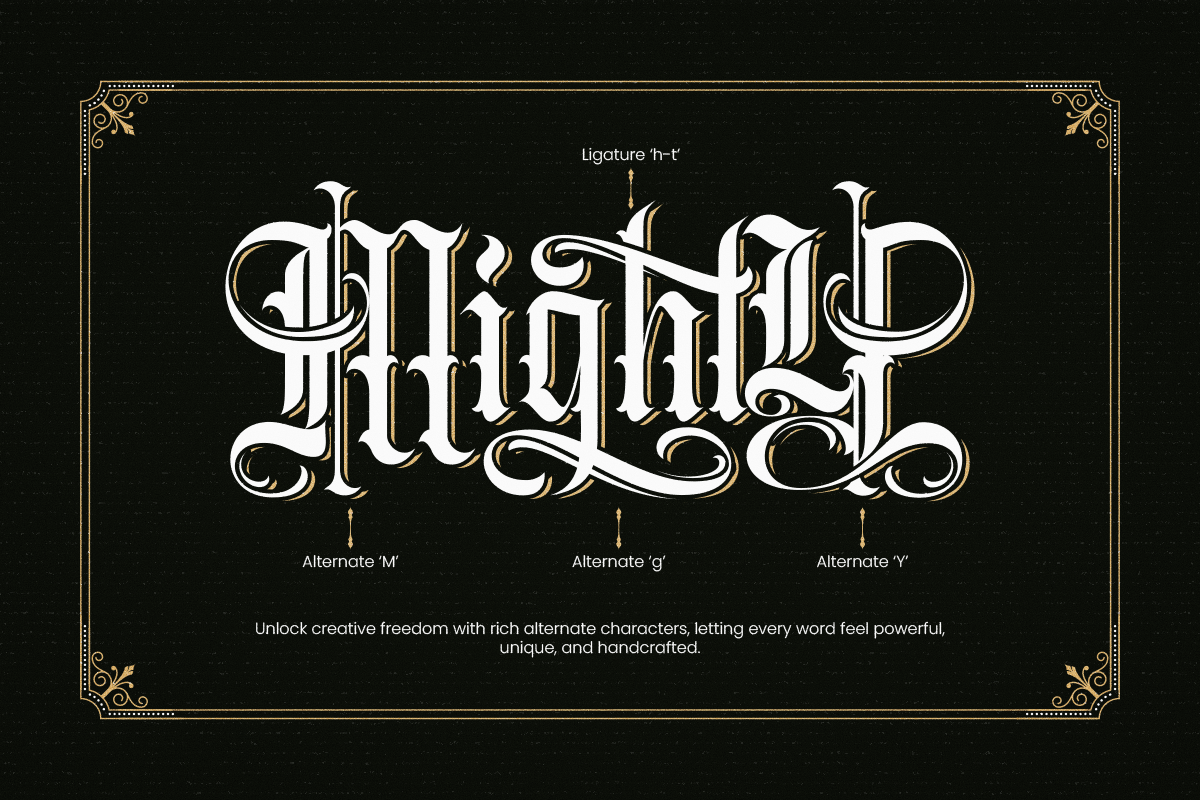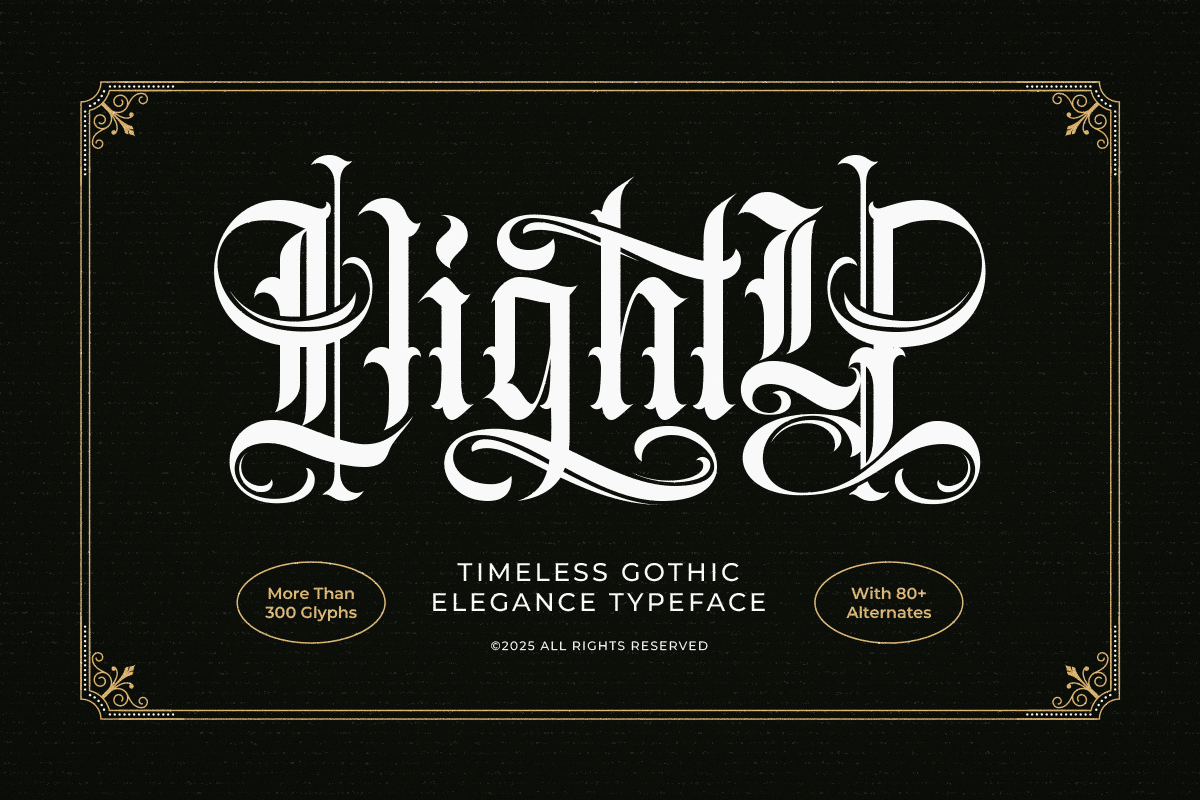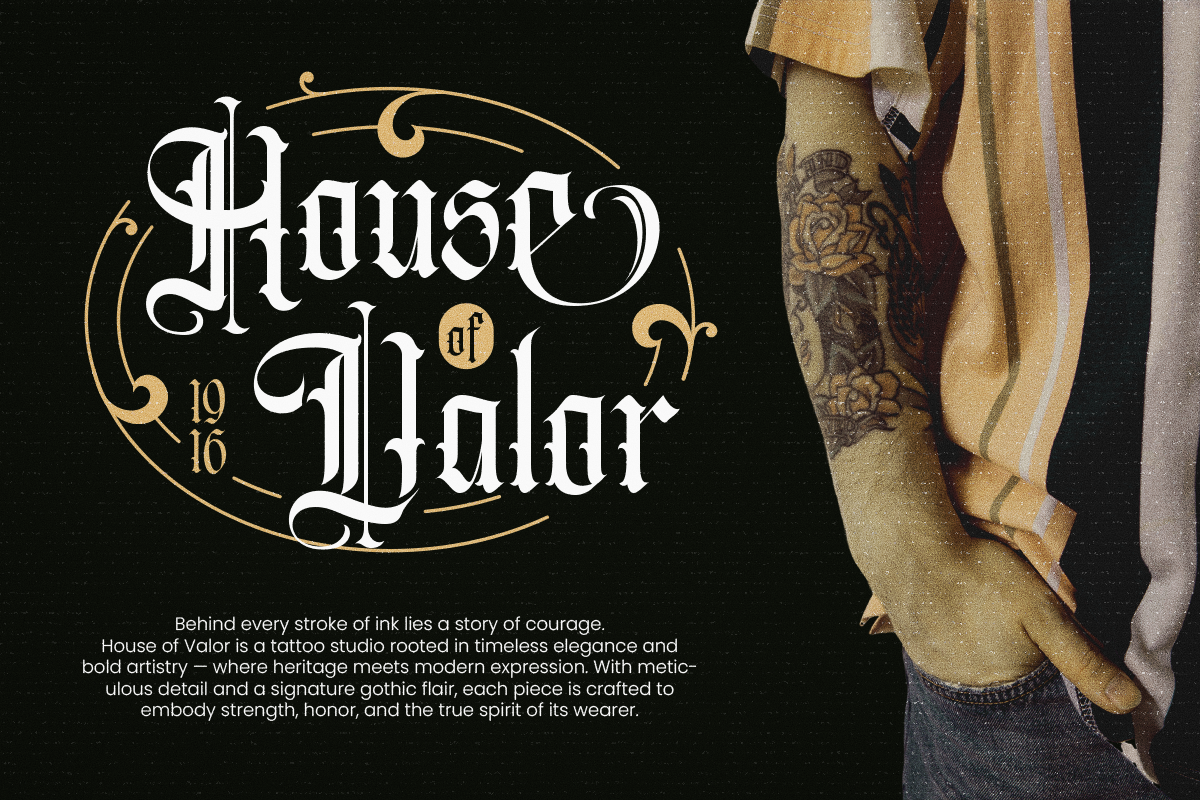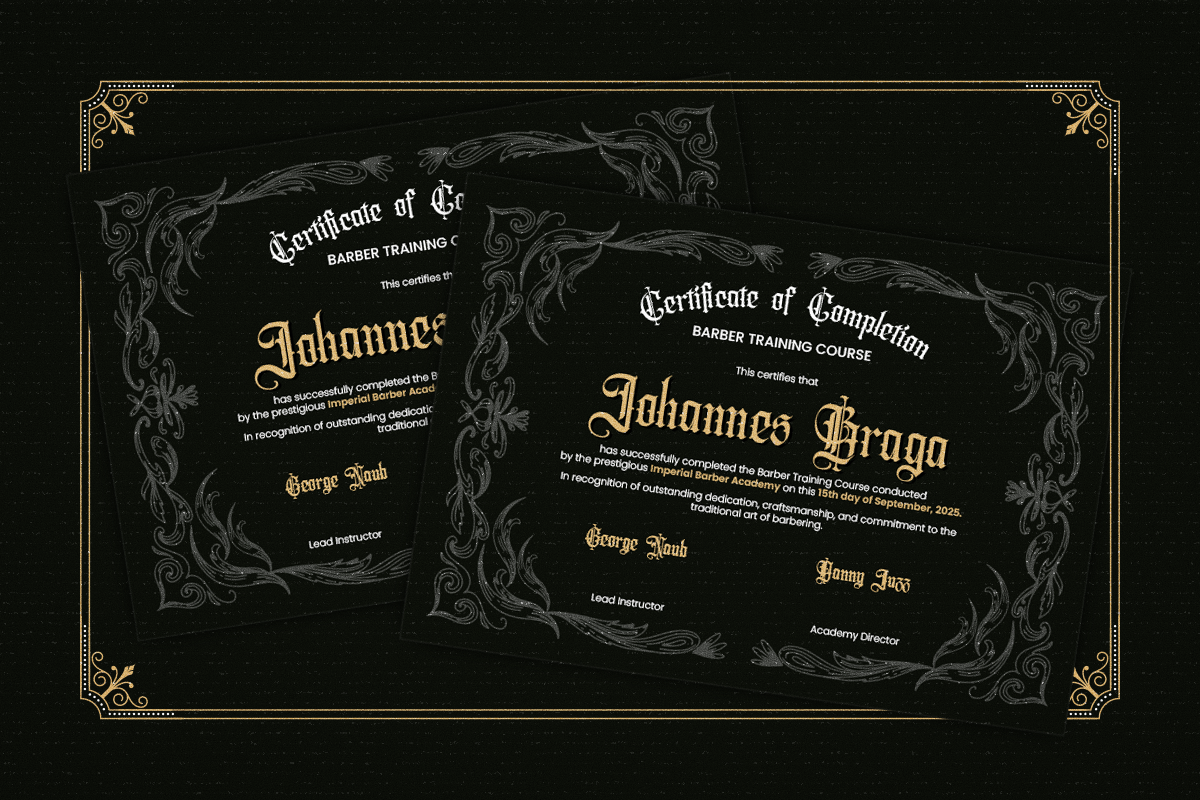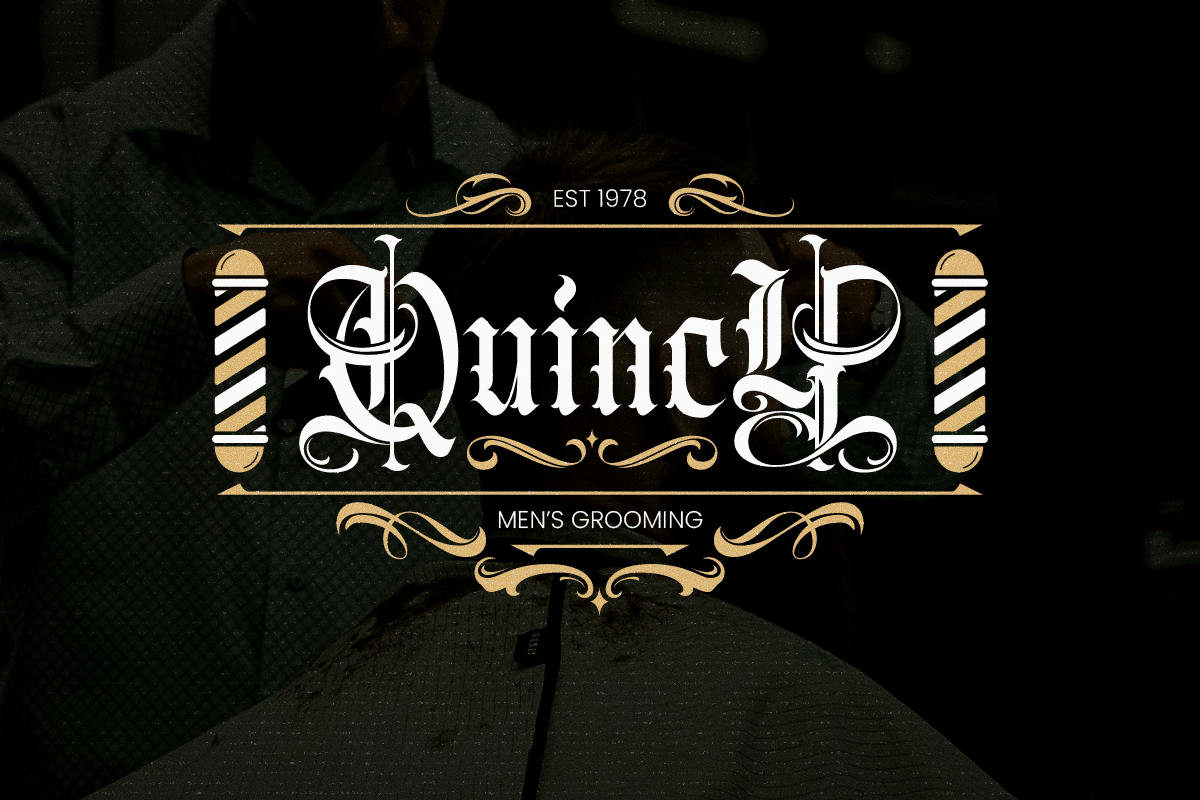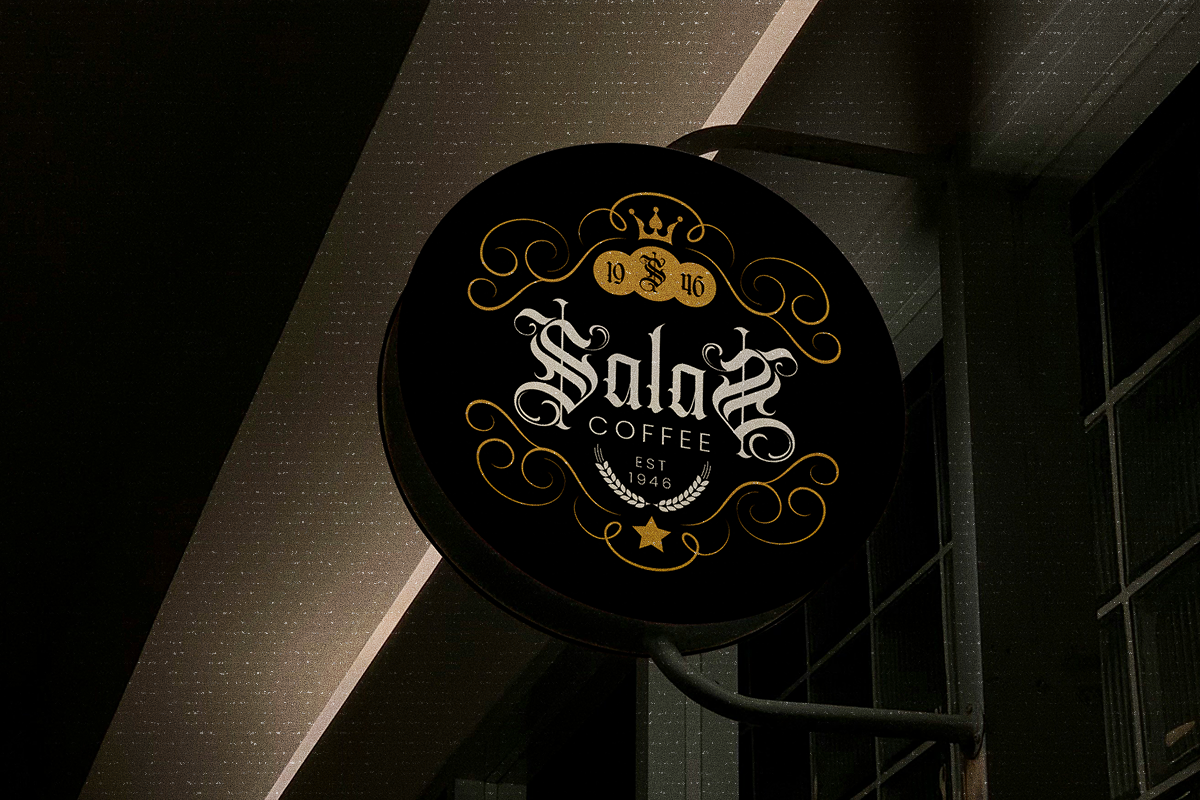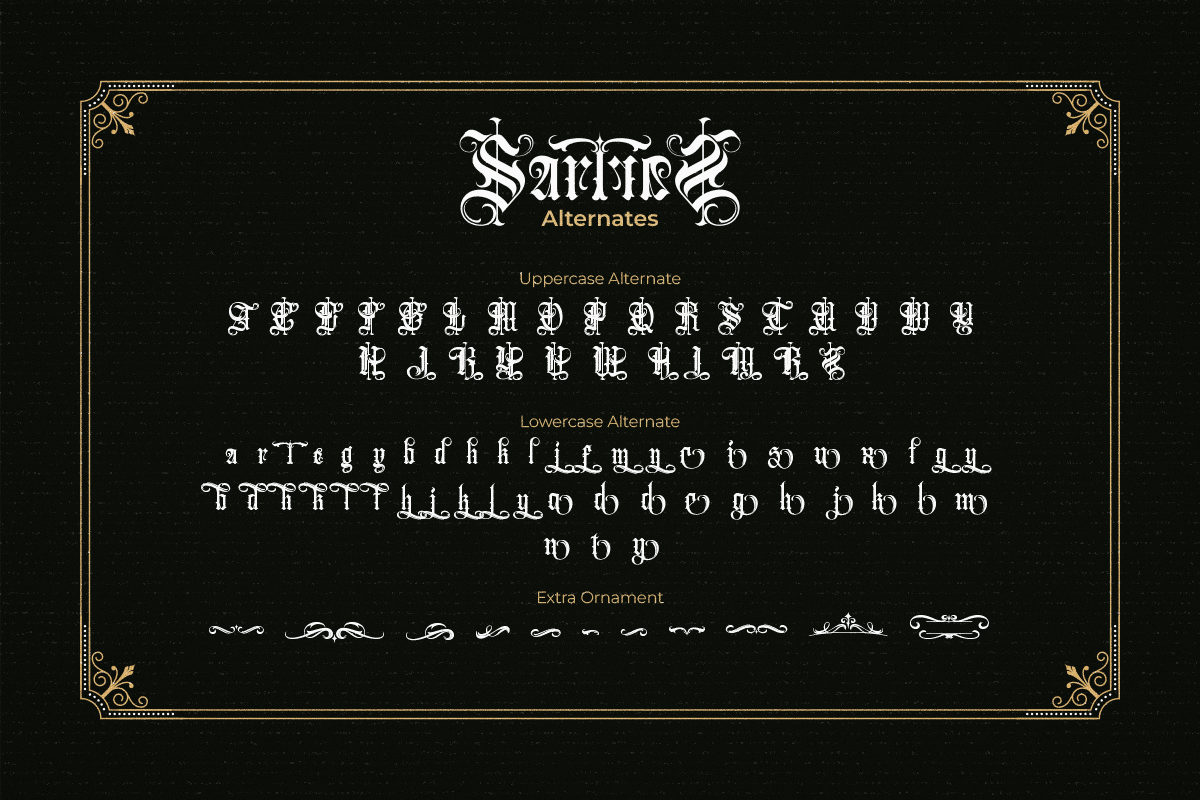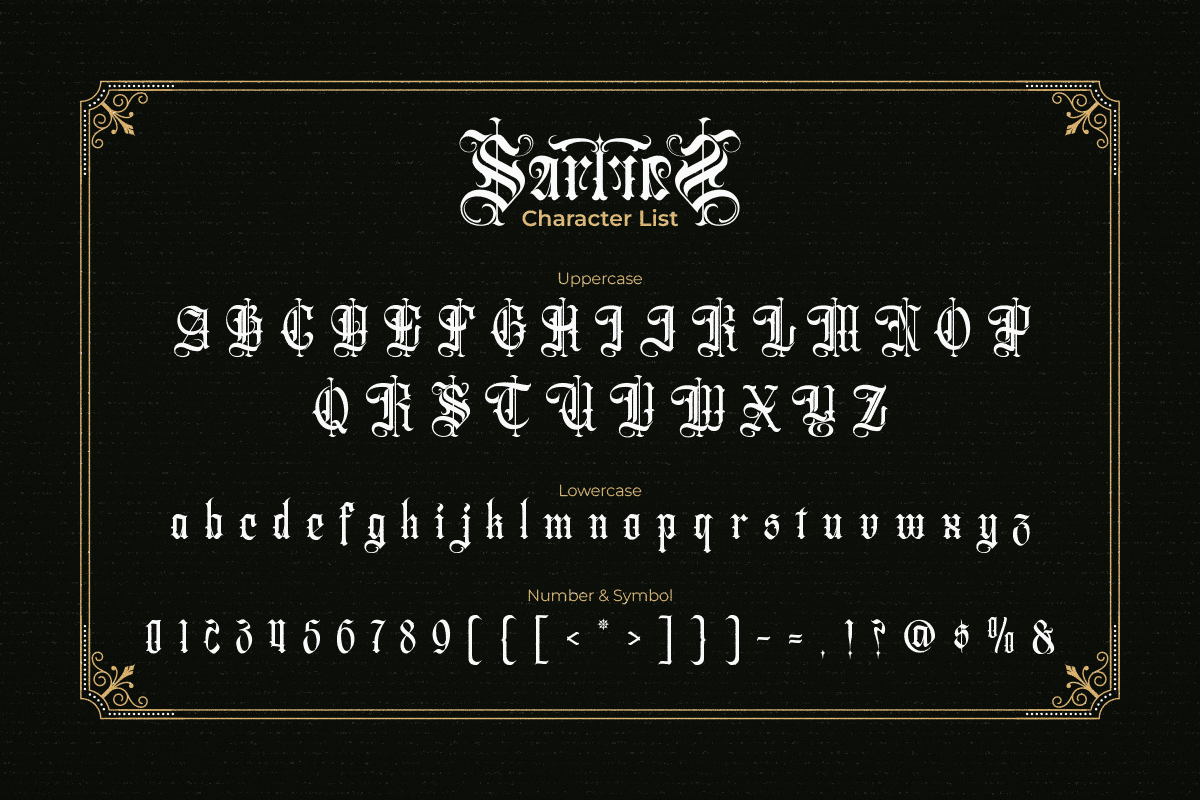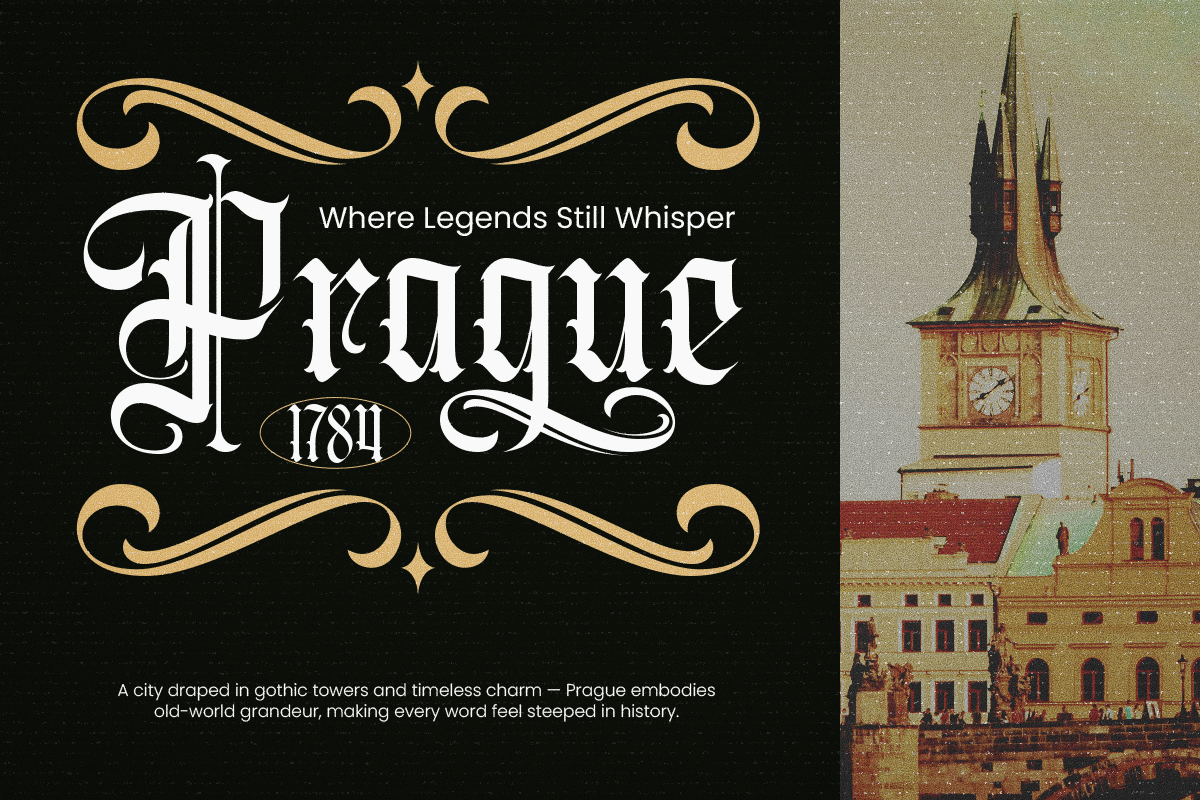
Vighty - Blackletter Font
Vighty is an elegant blackletter font that merges gothic tradition with modern sophistication. With its intricate letterforms, sharp edges, and graceful flourishes, this font exudes a sense of power and luxury. Perfect for branding, packaging, tattoos, apparel, and editorial designs, Vighty adds a refined, dramatic, and timeless aesthetic to any project.
- Upper & Lowercase alternates